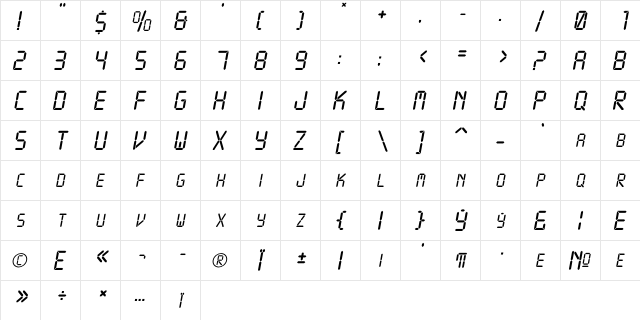
CrystalC Regular
Design Context for CrystalC Typeface
CrystalC takes a measured approach to typography — its balanced proportions and neutral character make it a reliable workhorse for both digital and print work.